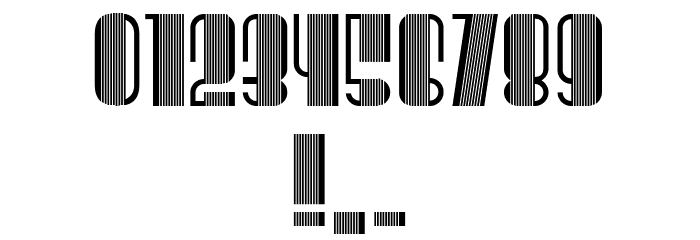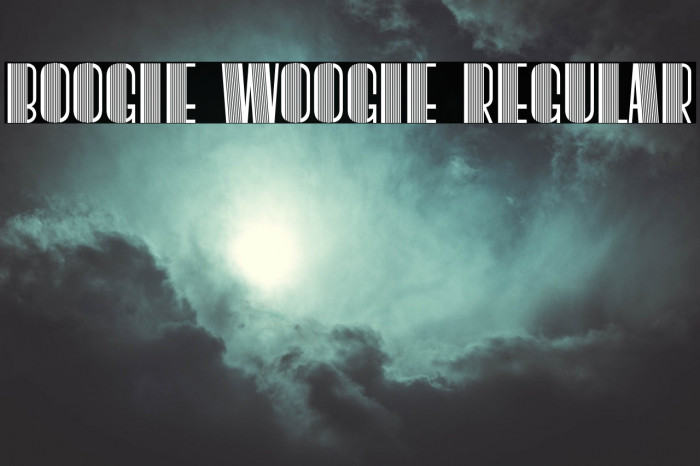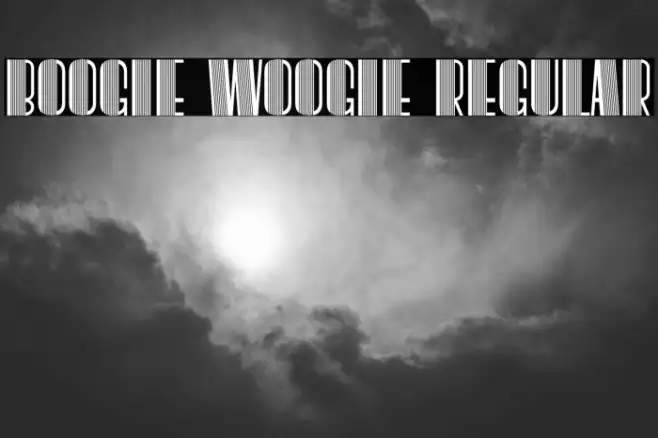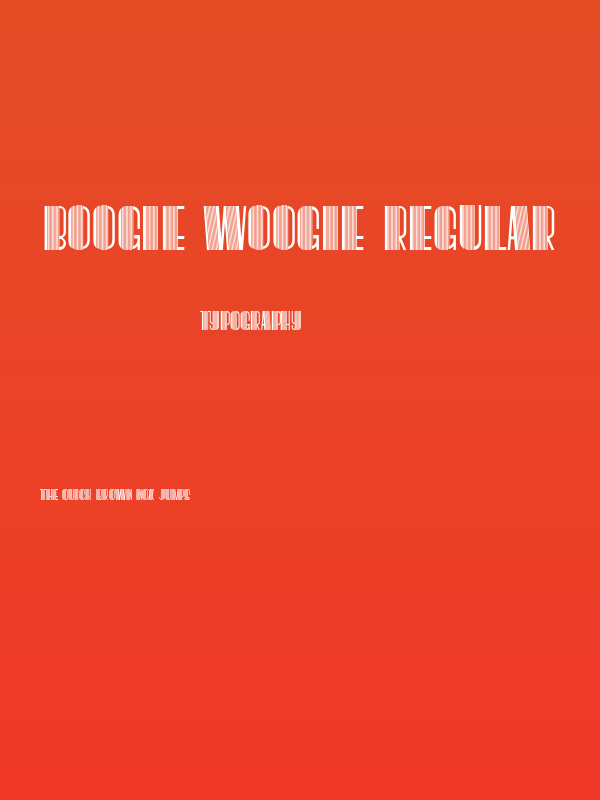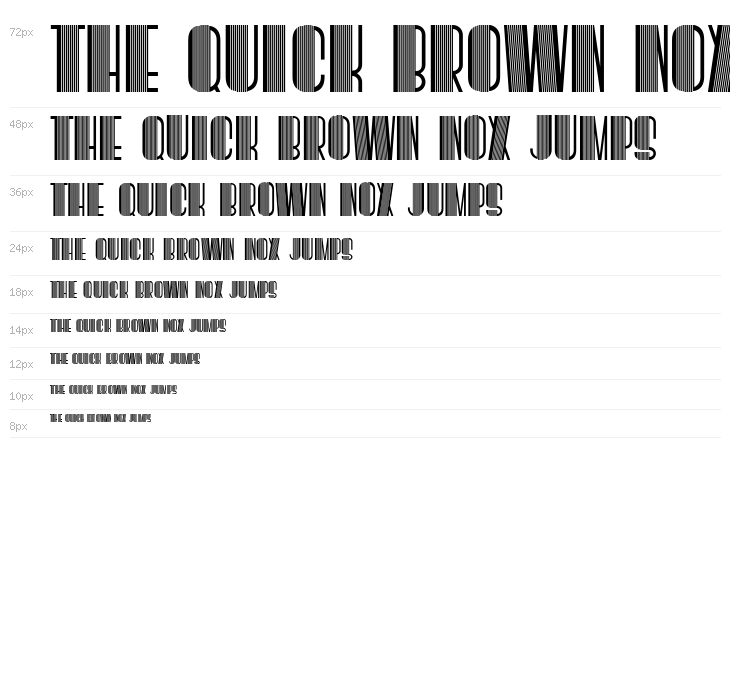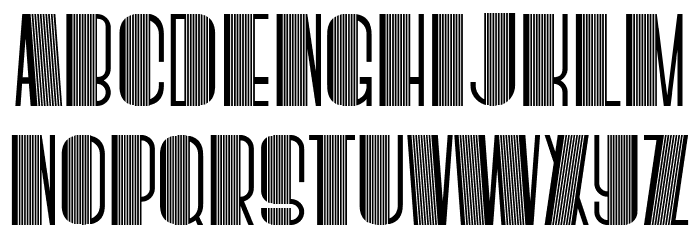
Boogie Woogie Regular Font
Boogie Woogie Regular Description
This font features a bold and striking design with vertical lines running through each character, creating a sense of rhythm and movement. The uppercase and lowercase letters are consistent in style, with a geometric and structured appearance. The numbers and special characters maintain the same aesthetic, ensuring a cohesive look across all elements. The font's unique pattern adds a dynamic and energetic feel, making it ideal for projects that require a standout visual impact.